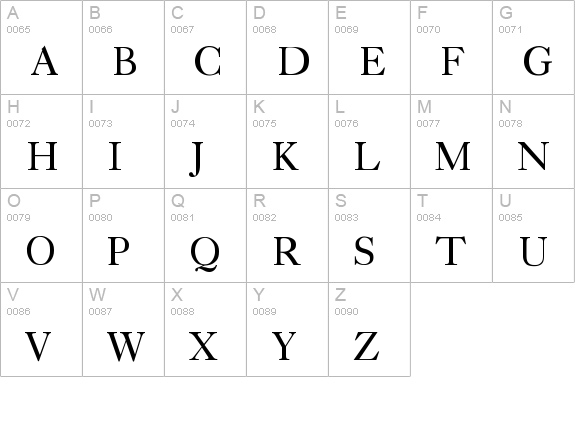
Nelsie-Normal is the standard, neutral variant in the Nelsie typeface family \xE2\x80\x94 well suited to general body text, paragraphs, and standard typographic work.
Nelsie-Normal font is a versatile and modern typeface that exudes a sense of elegance and sophistication. With its clean lines and balanced proportions, Nelsie-Normal is perfect for a wide range of design projects, from branding to editorial layouts. This font offers a timeless appeal that makes it suitable for both digital and print applications. What makes Nelsie-Normal even more appealing is that it is available for free download at FontsMarket.com. This means that you can easily access this high-quality font without any cost, making it a valuable addition to your font collection. Whether you are a designer looking to elevate your projects or a business seeking a professional and polished look, Nelsie-Normal font is a fantastic choice that won't break the bank. Download it today and see the difference it can make in your designs!